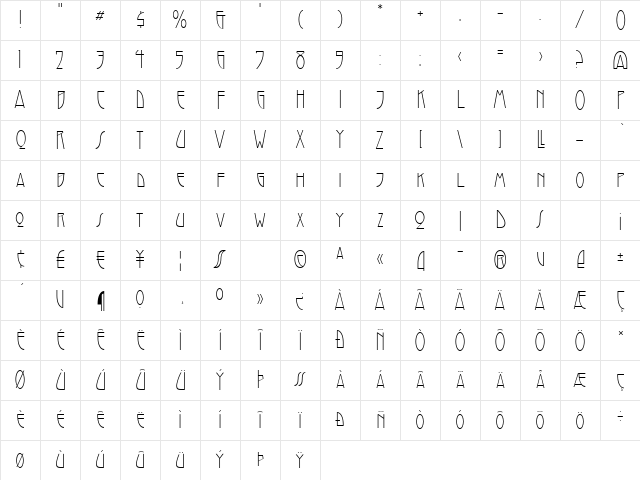
Santini Light Regular Free Font
Santini Light Regular
Design Context for Santini Light
Santini Light is a composed and adaptable typeface that performs quietly and consistently across a wide range of design contexts. Its slender proportions lend an understated elegance to any composition.